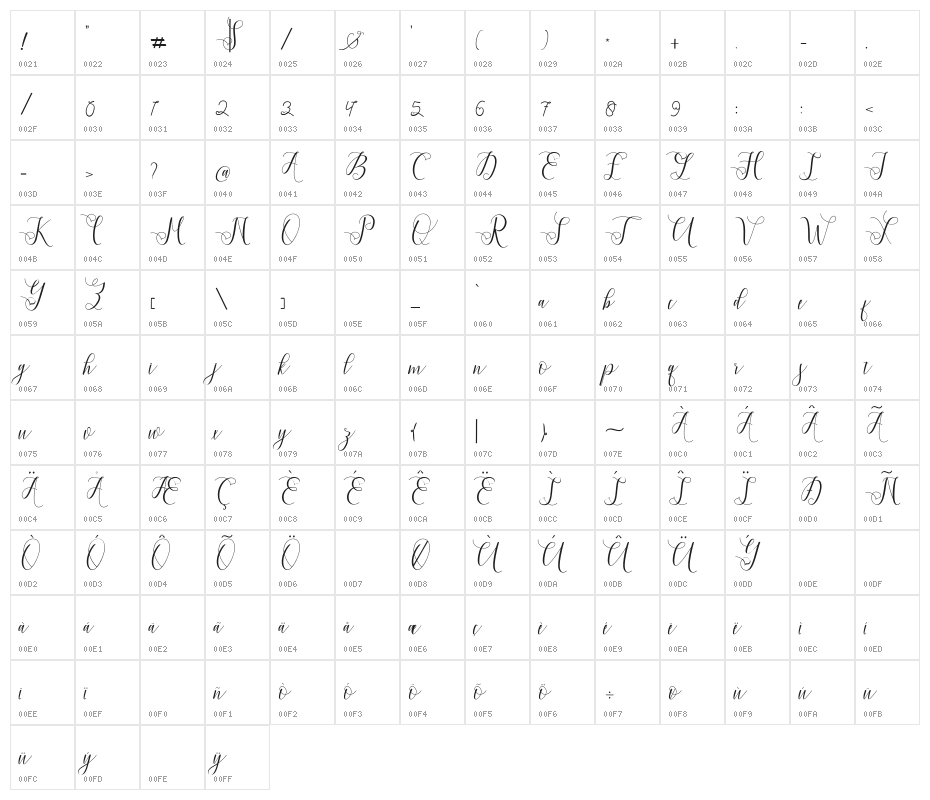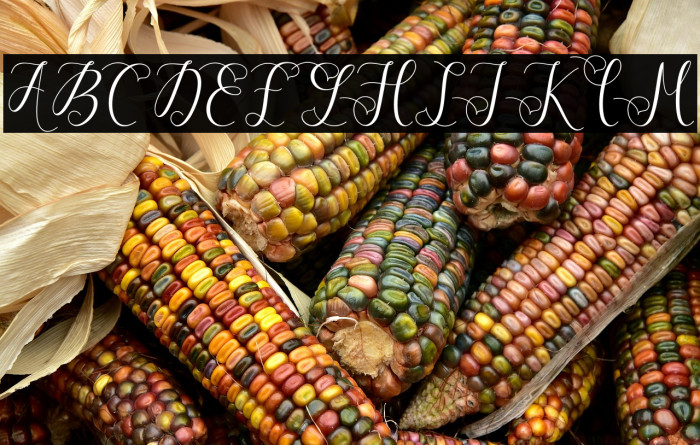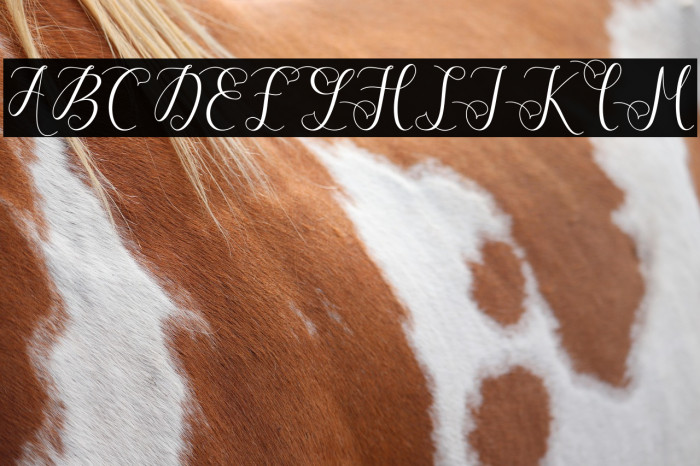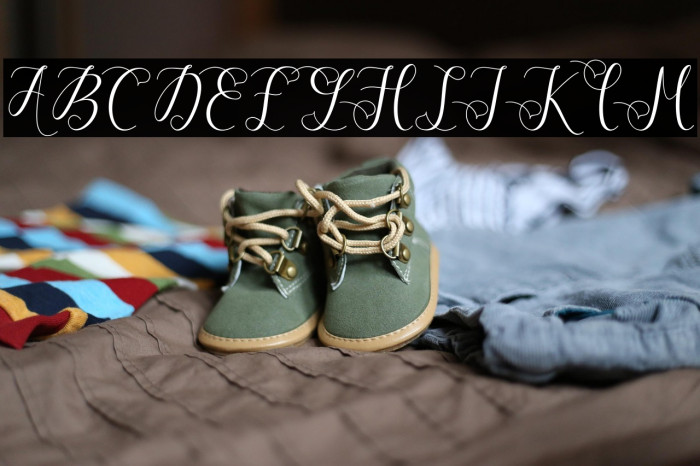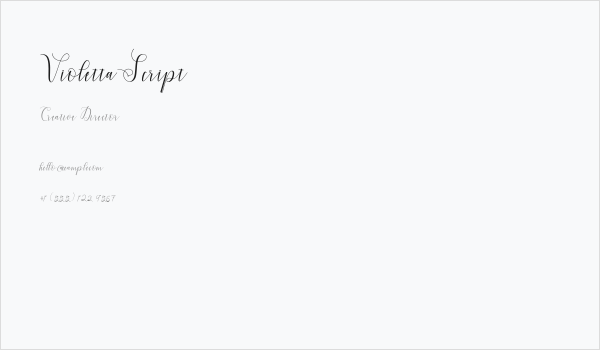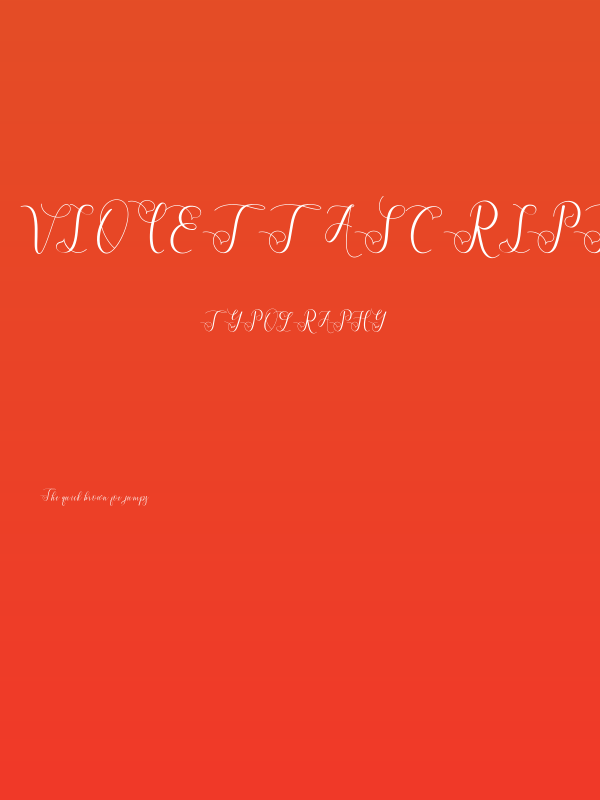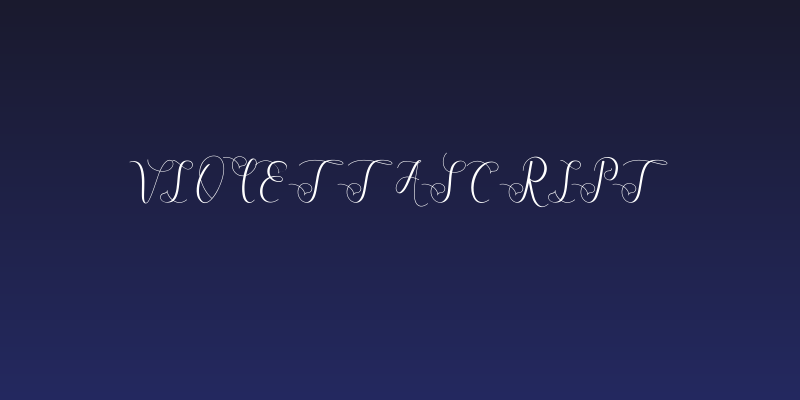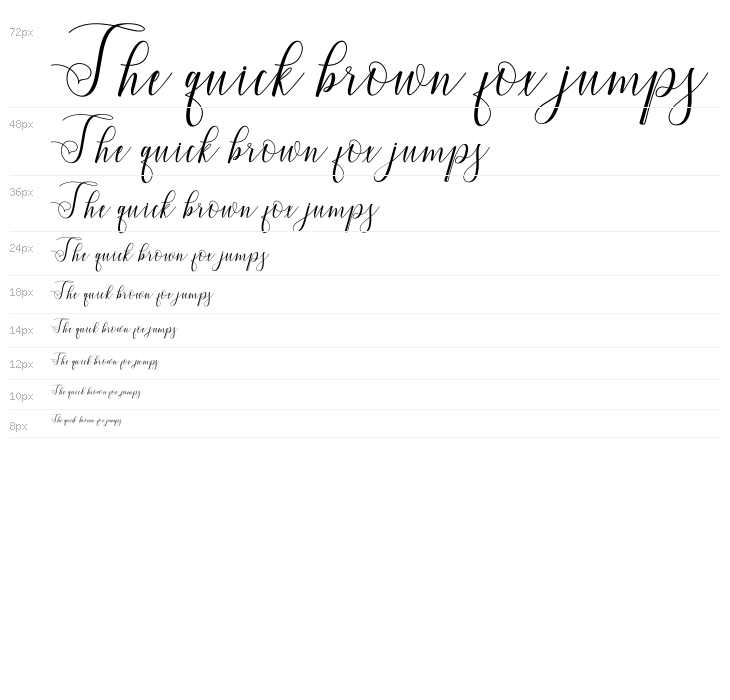
ViolettaScript Font
ViolettaScript Description
This elegant script font features a flowing, cursive style with intricate swashes and flourishes. The uppercase letters are particularly ornate, with extended loops and curves that give a sense of sophistication and grace. The lowercase letters maintain a consistent slant and are connected, enhancing the script's fluidity. Numbers and special characters are designed to complement the overall aesthetic, with similar decorative elements. The font's delicate strokes and high contrast between thick and thin lines contribute to its refined appearance, making it suitable for formal and decorative applications.
| Use Case | Logos, Invitations, Decorative text |
| Proposed Projects | Ideal for wedding invitations, elegant branding, greeting cards, and luxury product packaging. |